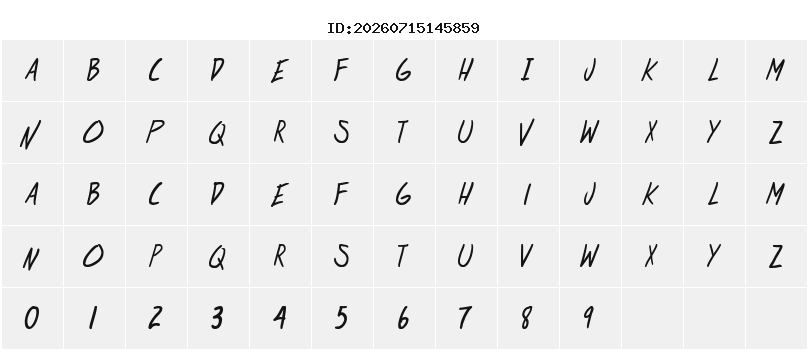
• Font Name: at risk youth
• Font Style: Italique
• Full Font Name: at risk youth Italic
• Designer: Andeh Pinkard
About at risk youth.ttf
at risk youth.ttf is a modern, elegant sans-serif font designed for ultimate readability and visual harmony. Perfect for branding, headlines, web design, and print materials.